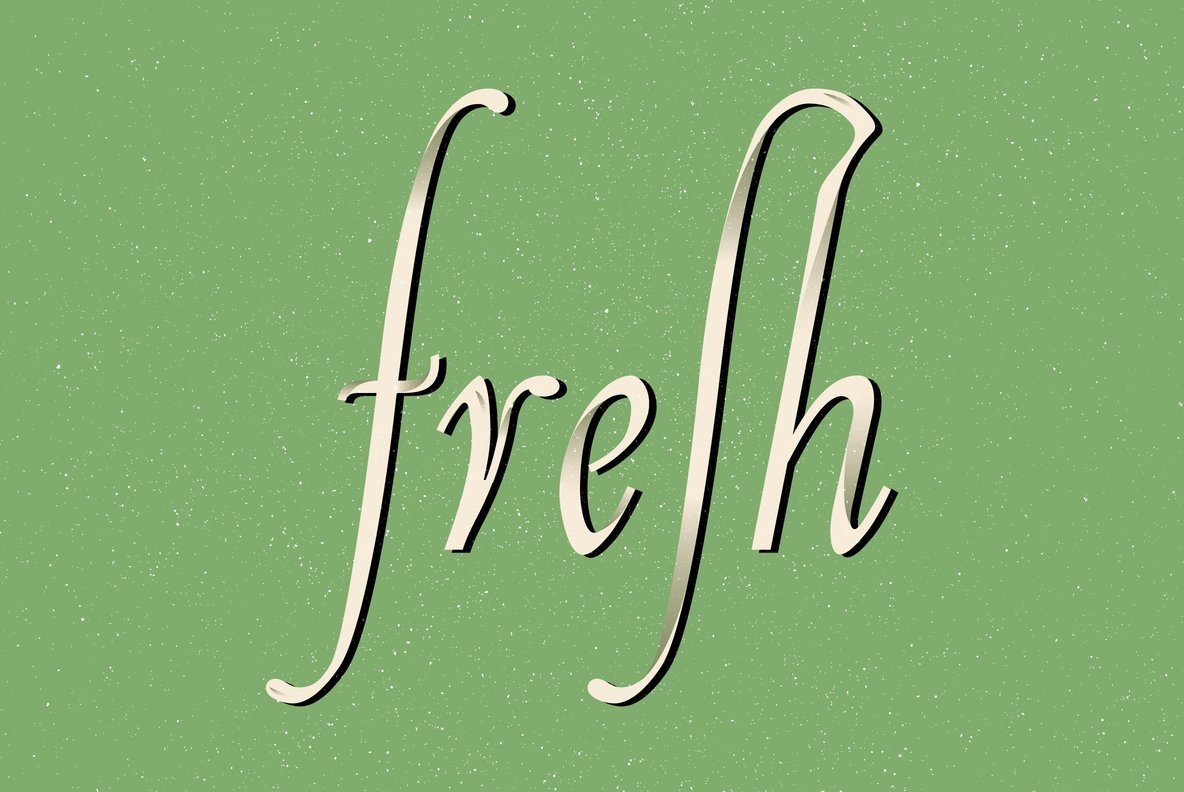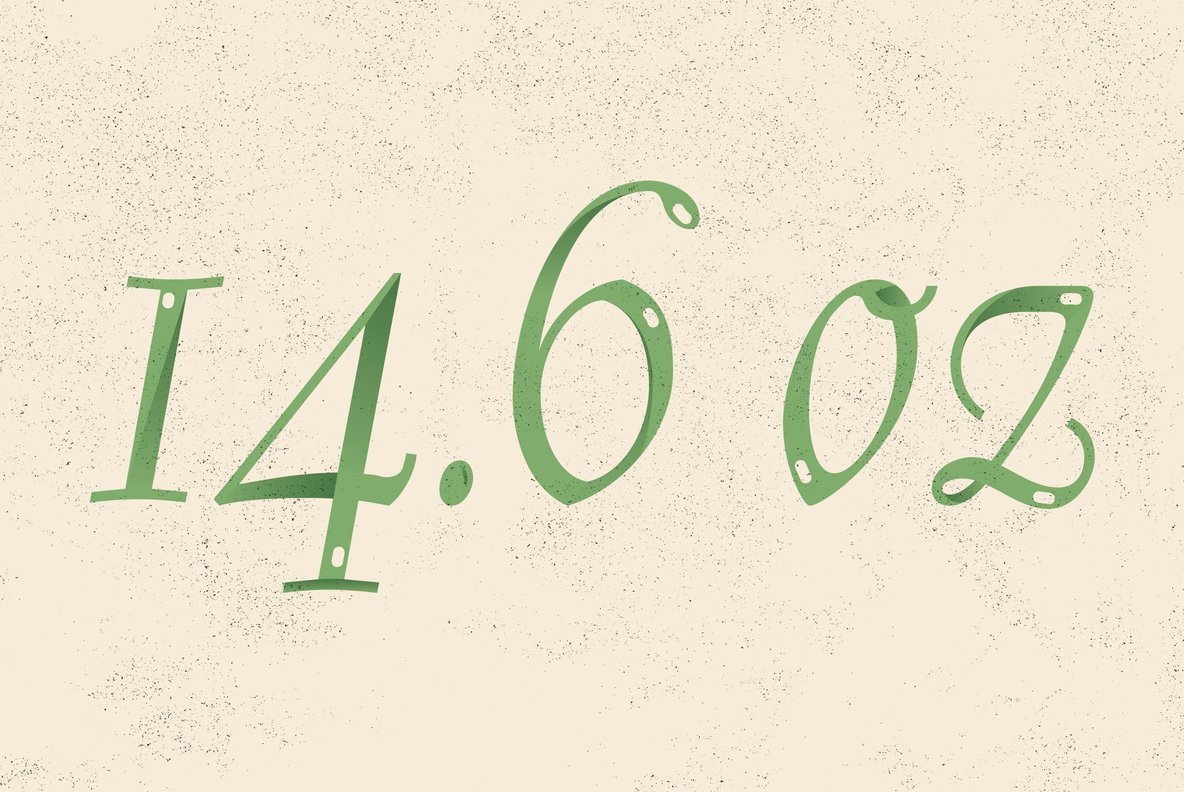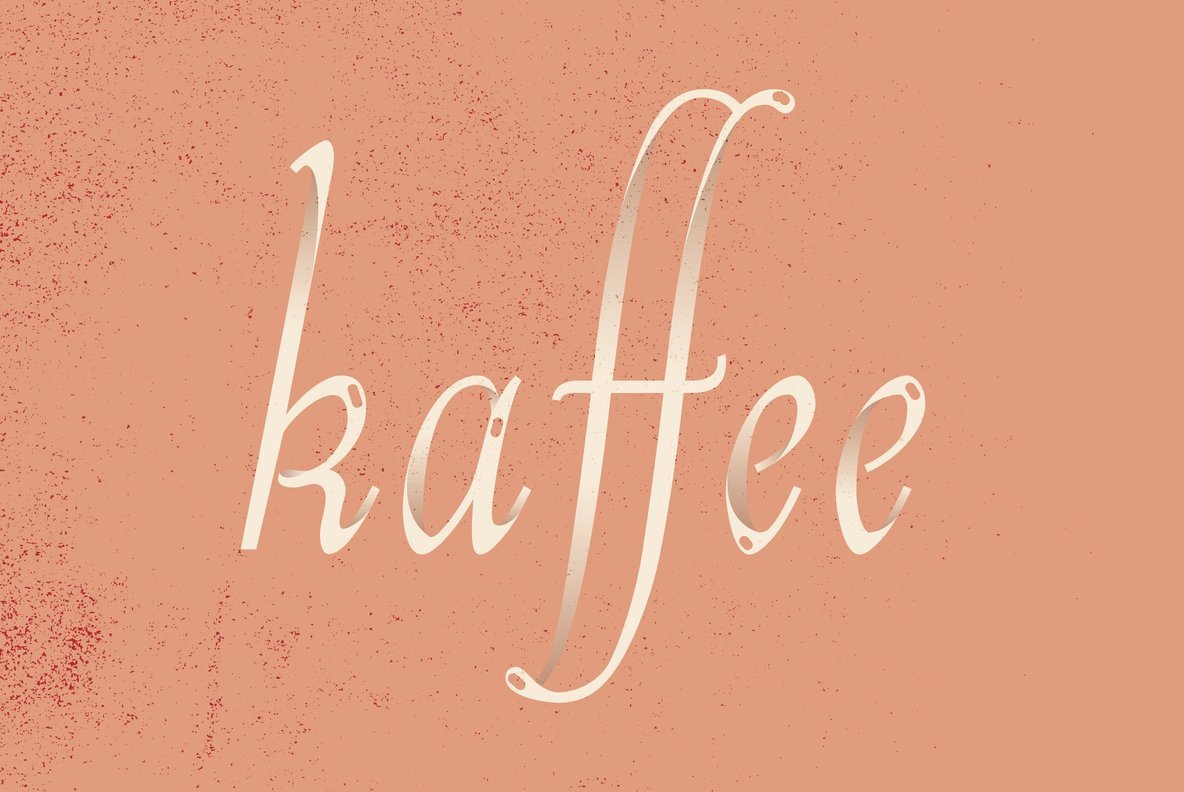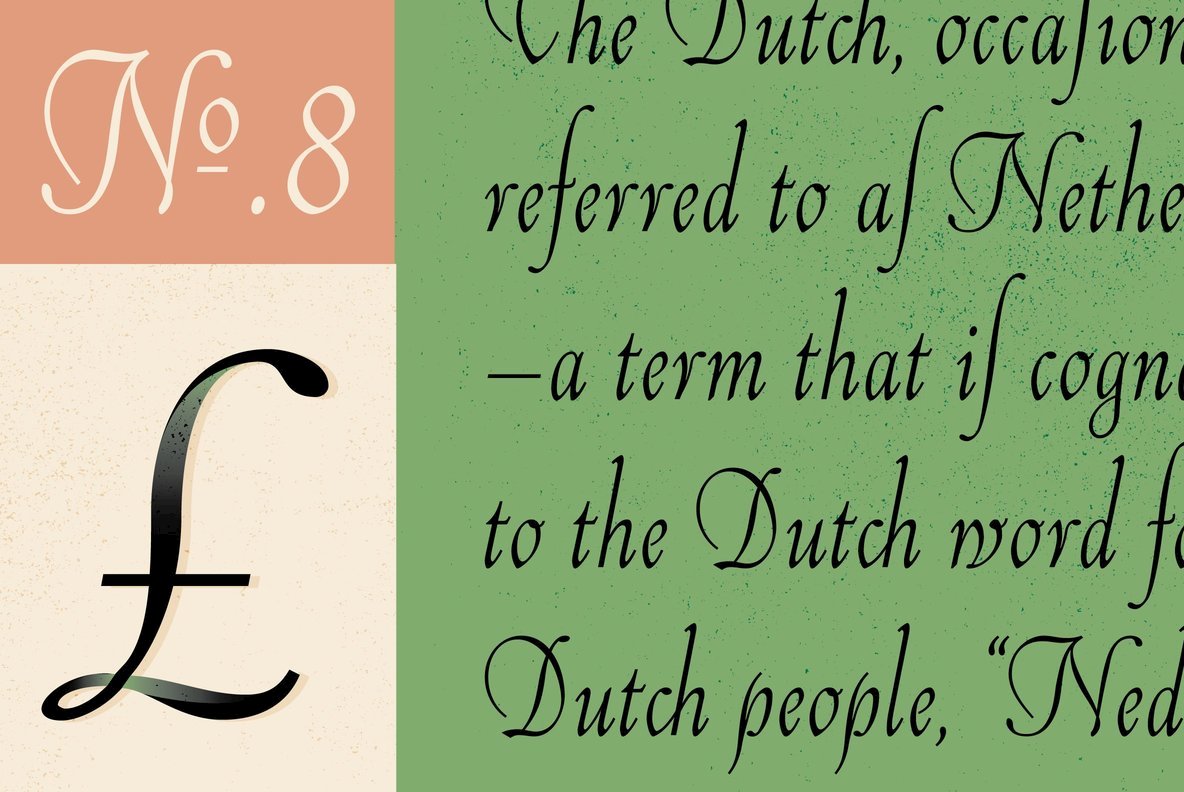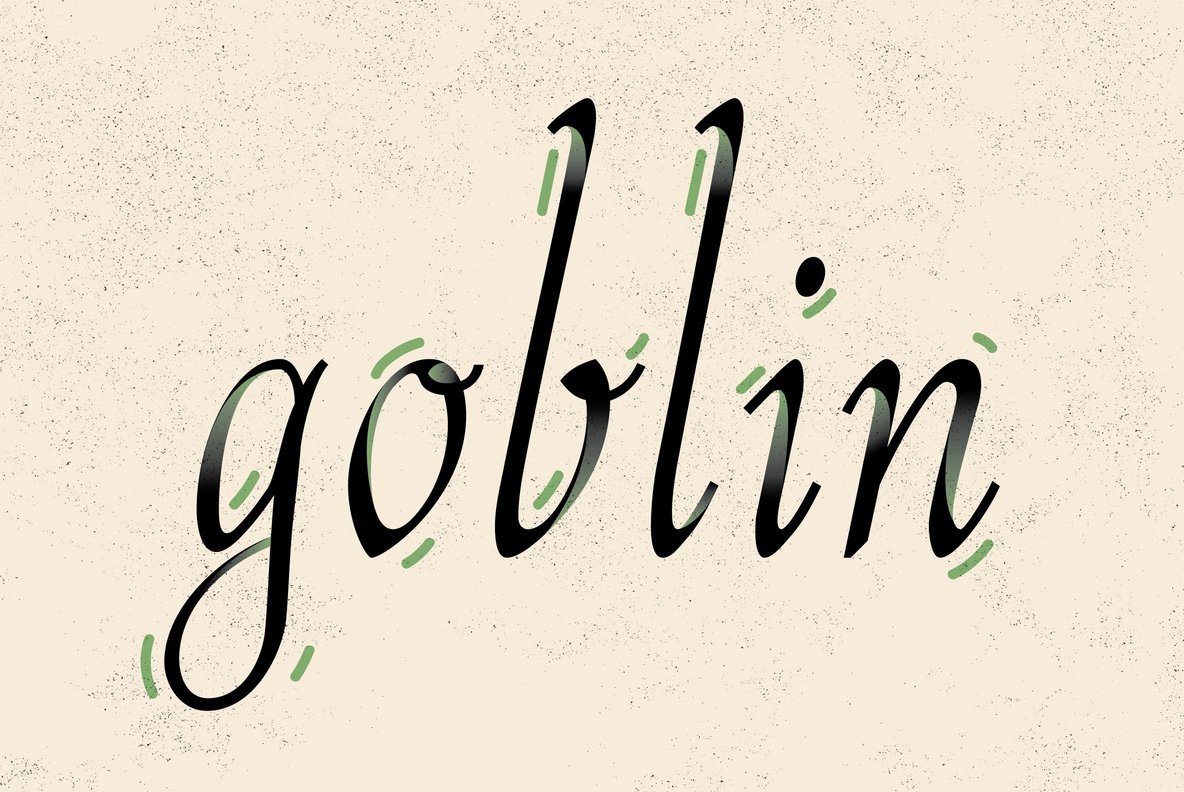
Hoyer Script Font
Hoyer Script Italic
Hoyer Script is a fresh redesign of Hans Hoyer’s Schoenschrift, a slender vintage italic with a calligraphic touch. This font should be used like my blackletter fonts.